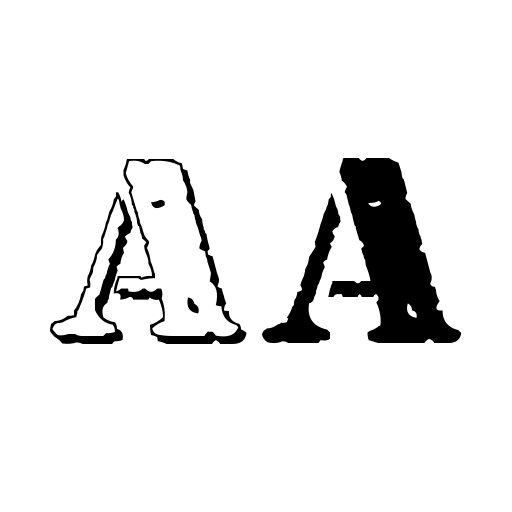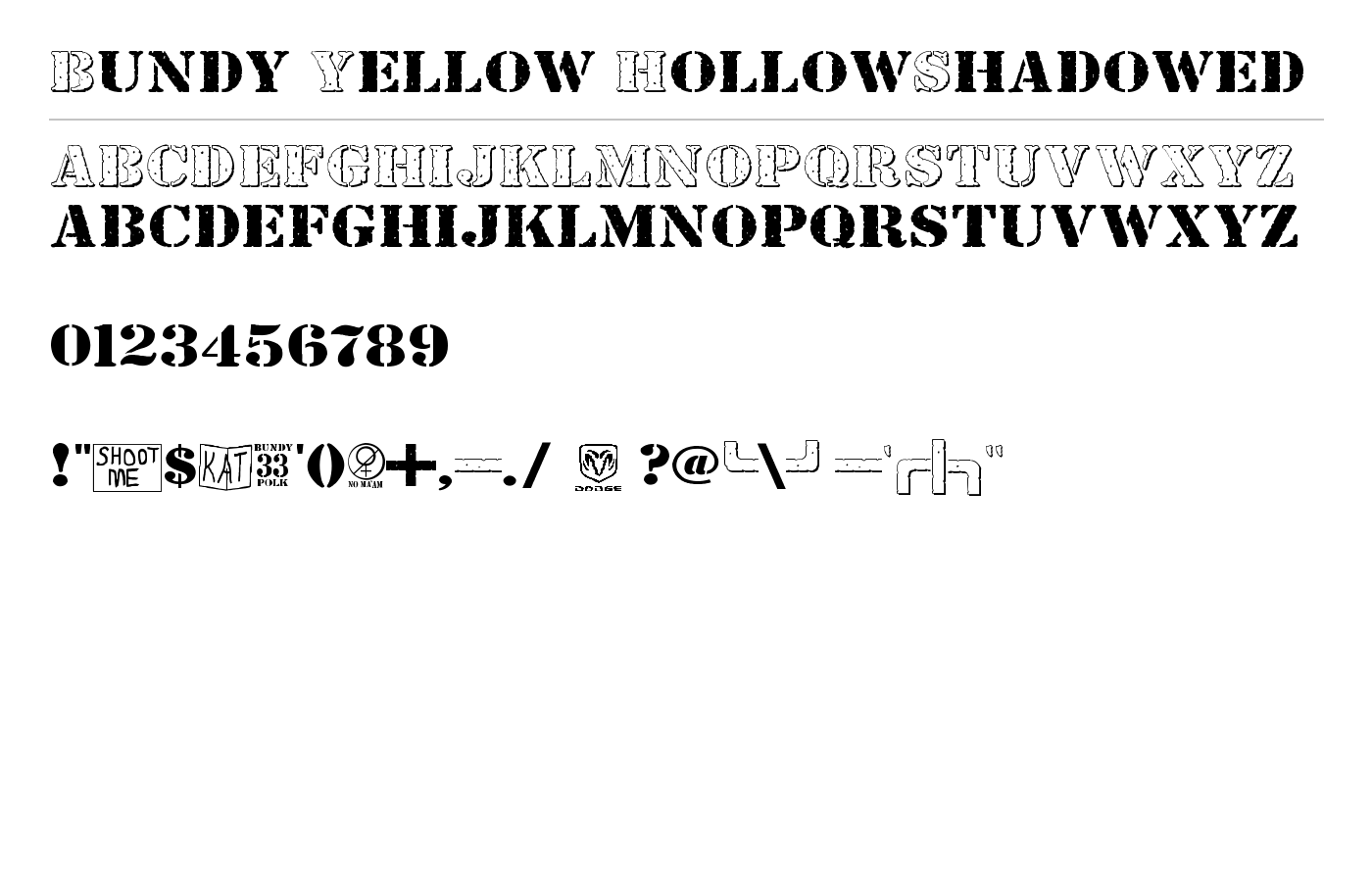
Bundy Yellow HollowShadowed is a bold, decorative serif display font with a vintage, stencil-like appearance featuring hollow and shadowed variations. Its strong, blocky letterforms with high contrast and textured details evoke an industrial, rugged feel, making it ideal for eye-catching headlines, posters, and branding that aims to capture an old-fashioned or rebellious spirit. This font works best where impactful, statement-making typography is needed to add character and a sense of history or grit.
Bundy Yellow HollowShadowed Font
About Bundy Yellow HollowShadowed Font